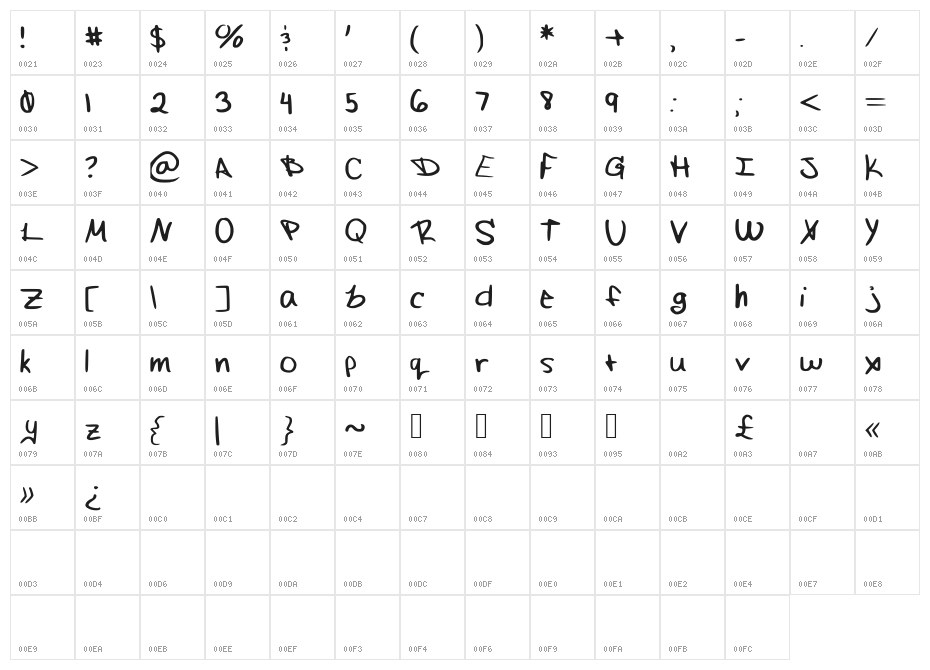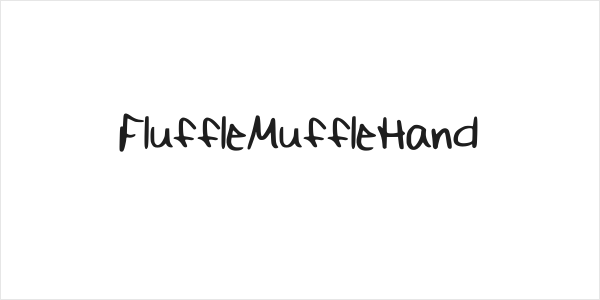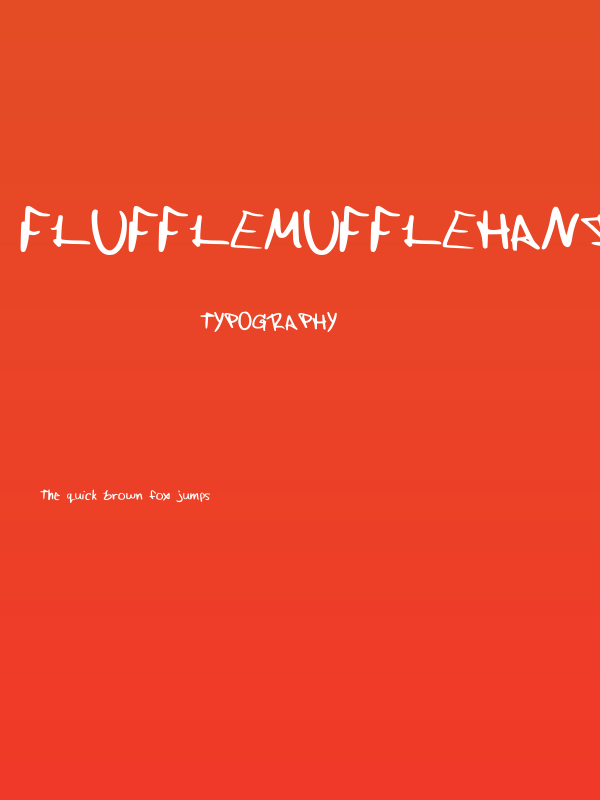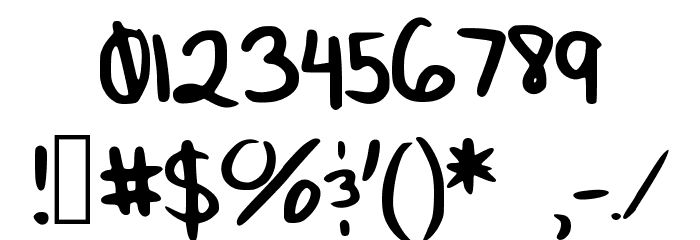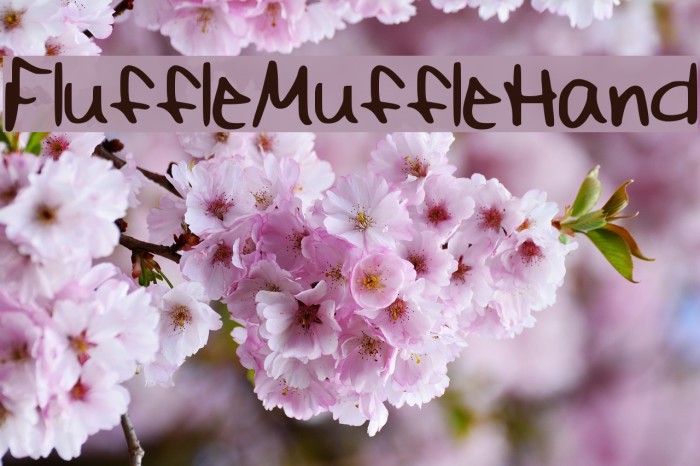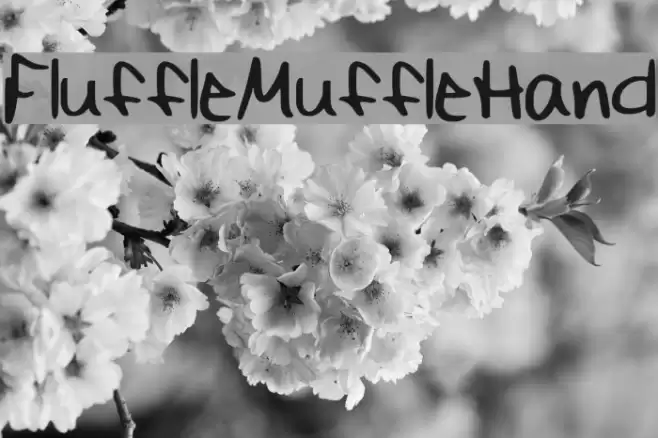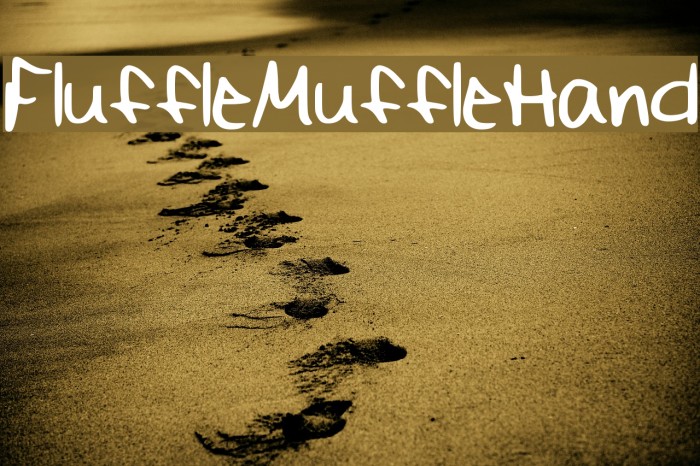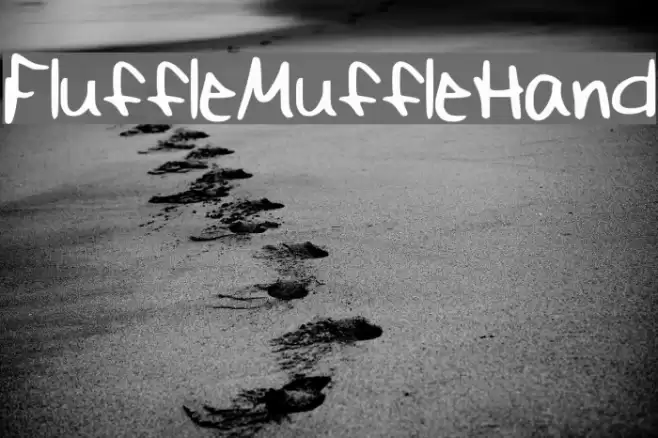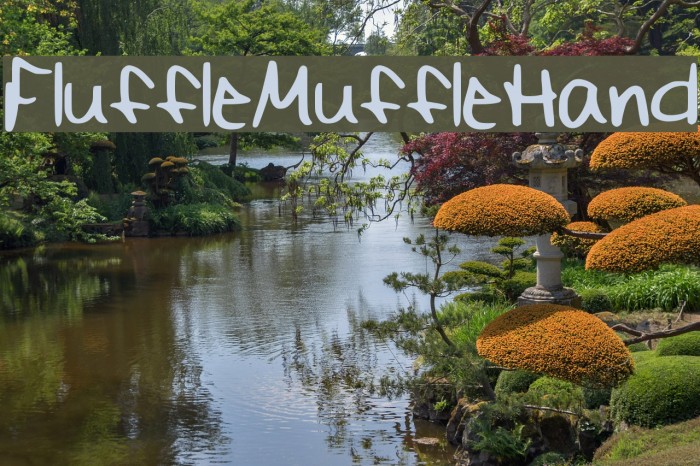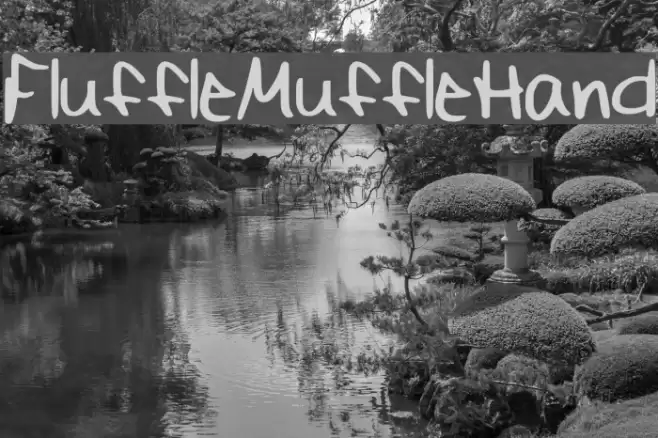
FluffleMuffleHand Font
FluffleMuffleHand Description
This playful and energetic font features a handwritten style with a casual and friendly appearance. The letters are bold and slightly irregular, giving them a lively and spontaneous feel. The uppercase and lowercase characters maintain a consistent flow, with rounded edges and a slight slant that adds to the informal charm. The numerals and special characters are equally expressive, maintaining the font's overall whimsical aesthetic. This font is perfect for projects that require a personal touch or a fun, approachable vibe.